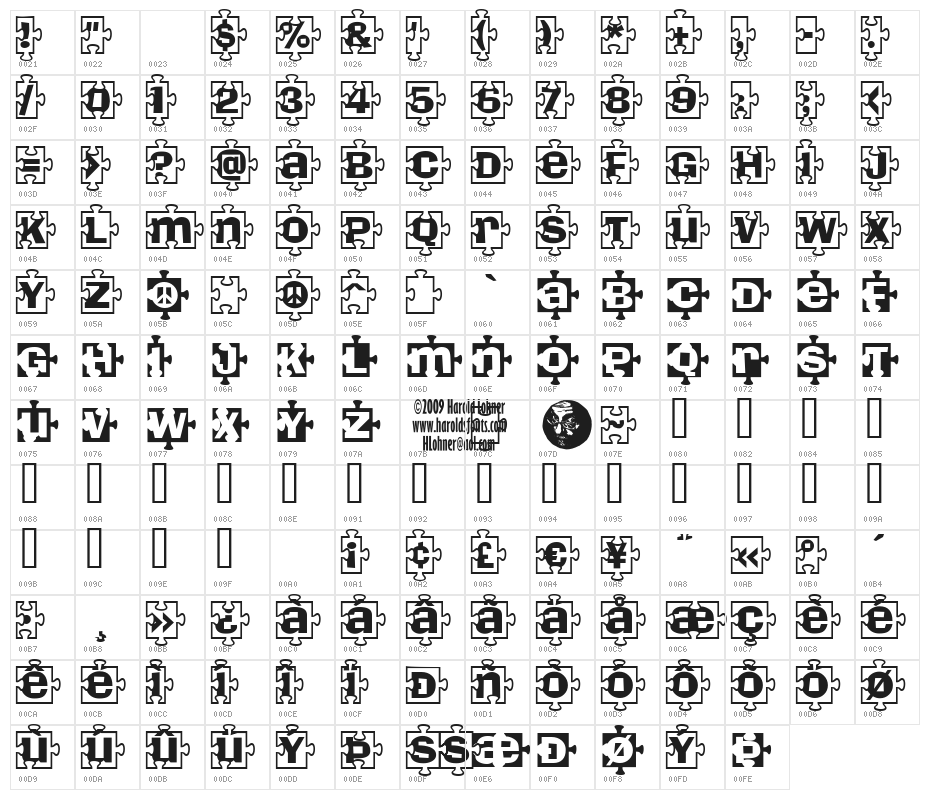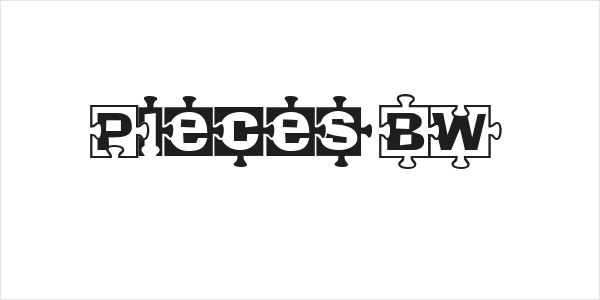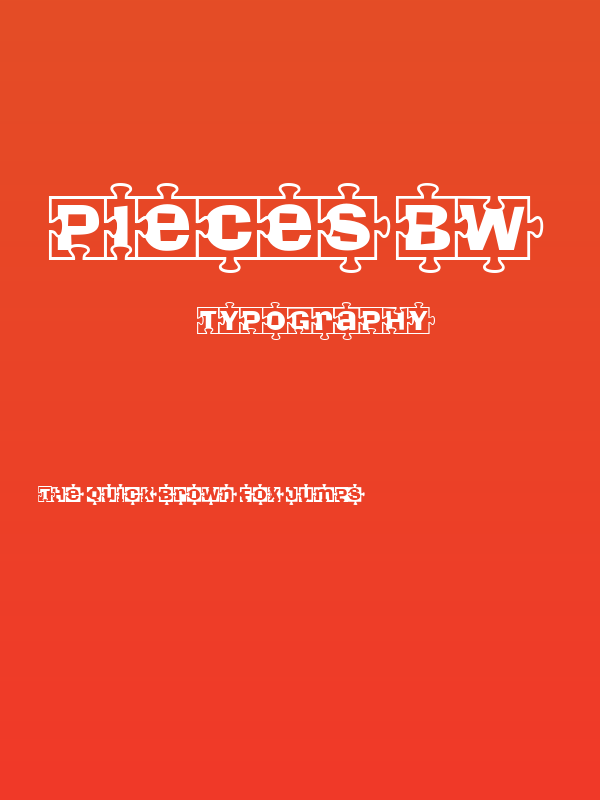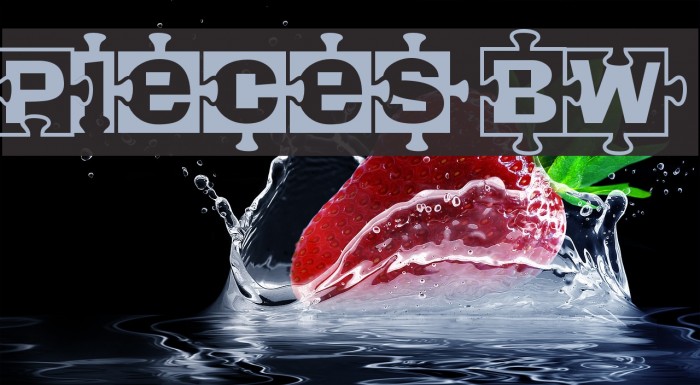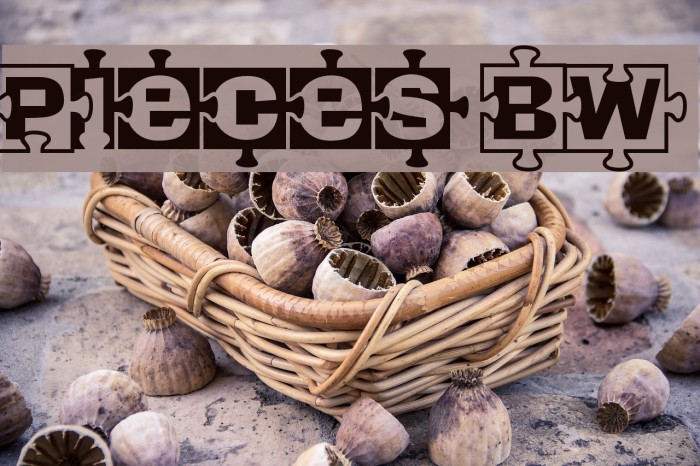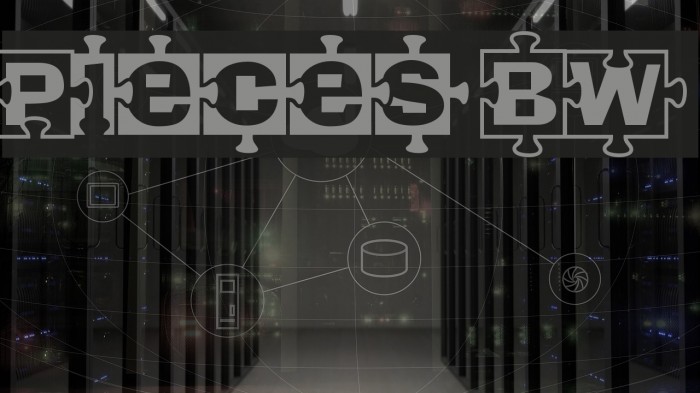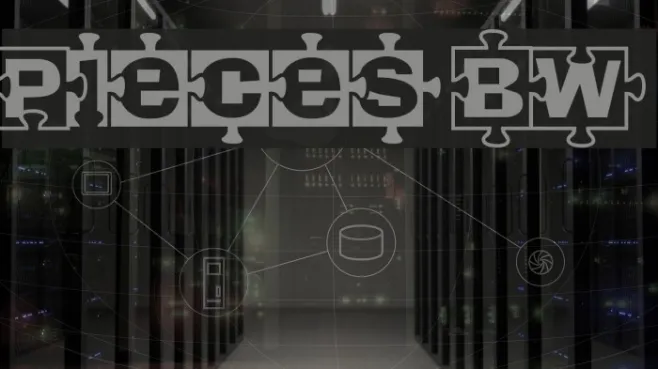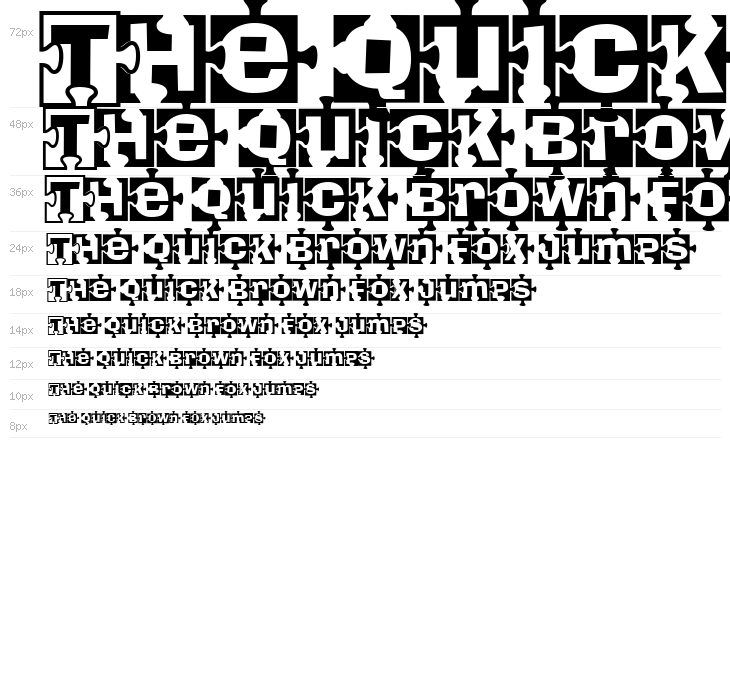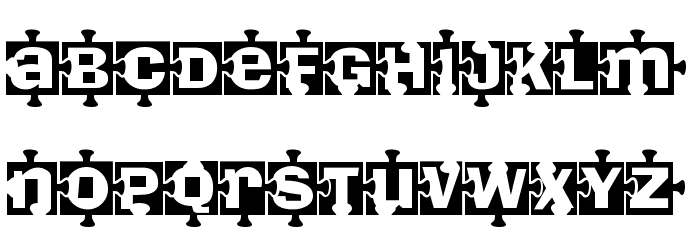
Pieces BW Font
Pieces BW Description
This font features a unique design where each character is enclosed within a puzzle piece shape, creating a playful and distinctive appearance. The characters are bold and have a strong presence, making them stand out. The puzzle piece outlines add an element of fun and creativity, making it suitable for projects that require a whimsical or unconventional look. The font maintains a consistent thickness throughout, with medium contrast between the strokes and the outlines. The character spacing is normal, ensuring readability despite the decorative elements.
| Proposed Projects | Ideal for children's books, educational materials, playful branding, and creative posters. |